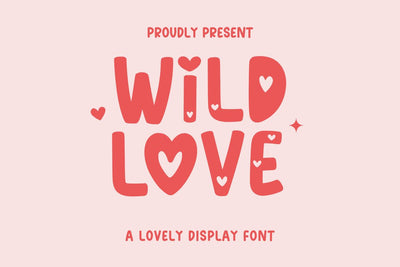
Wild Love - Cute Font
Wild Love is a beautiful heart decorative font. This font is perfect for Cricut projects, canvas, laser, shirts, stickers, quotes, logos, teachers, scrapbooks, apparel, and more! Thank You!